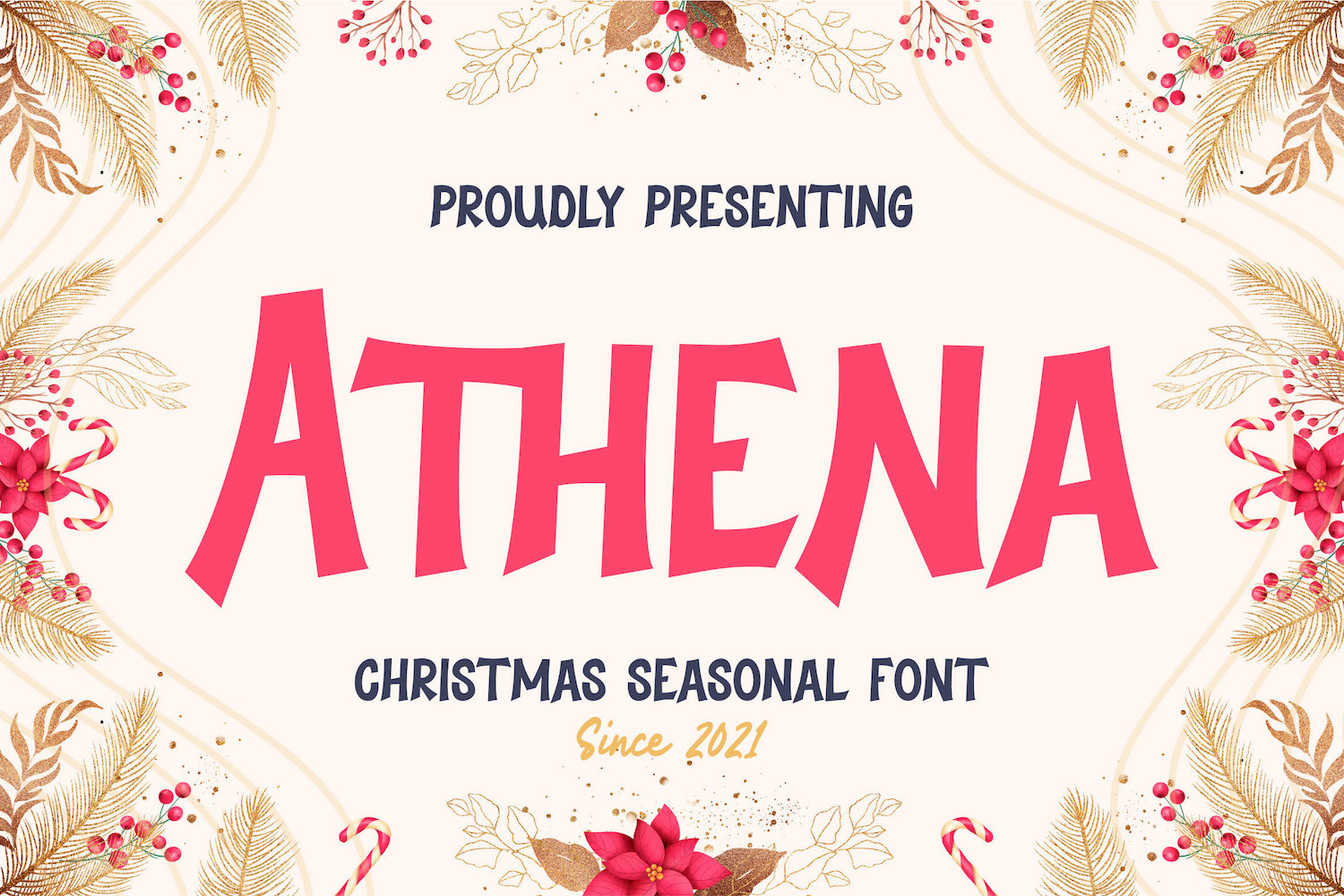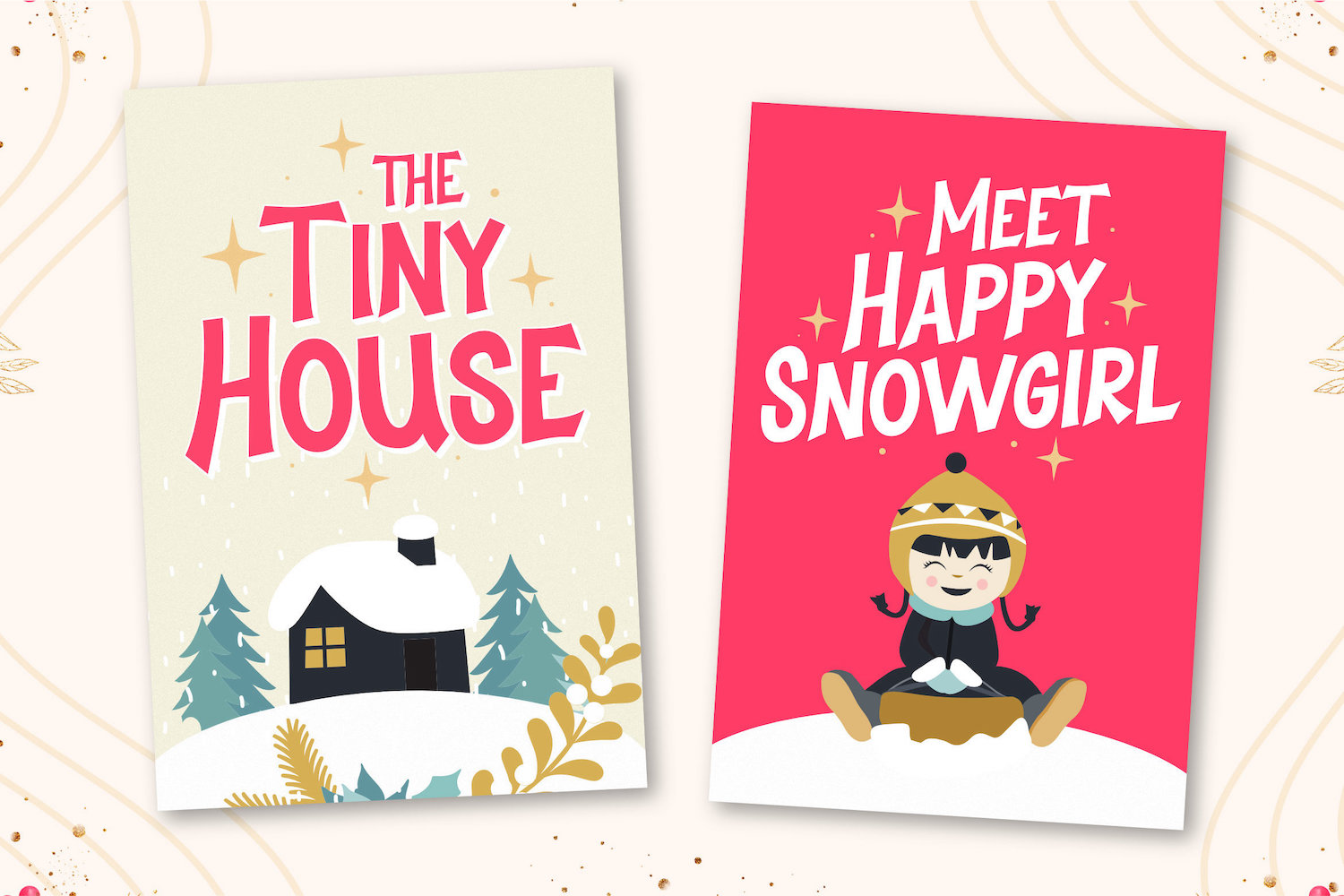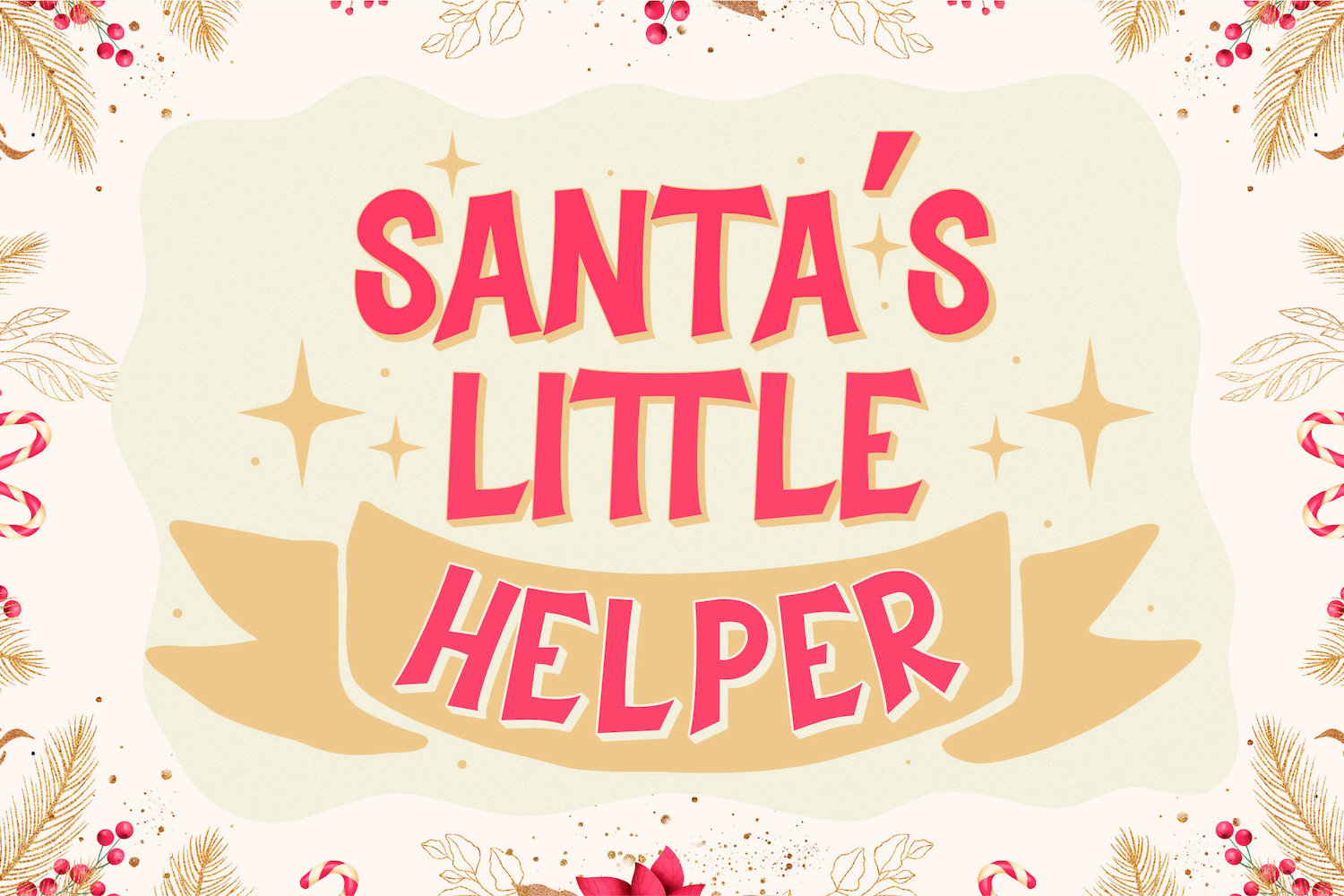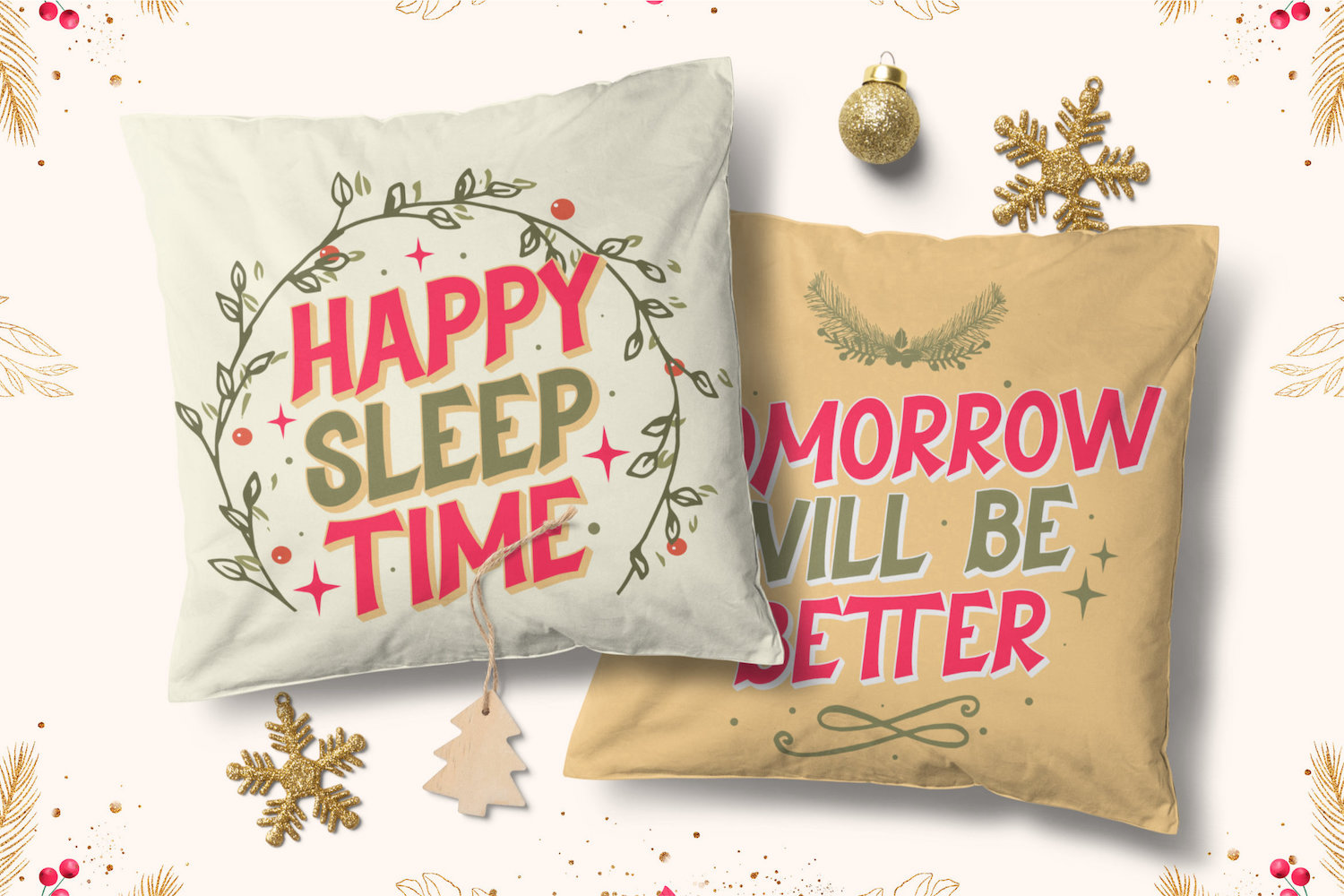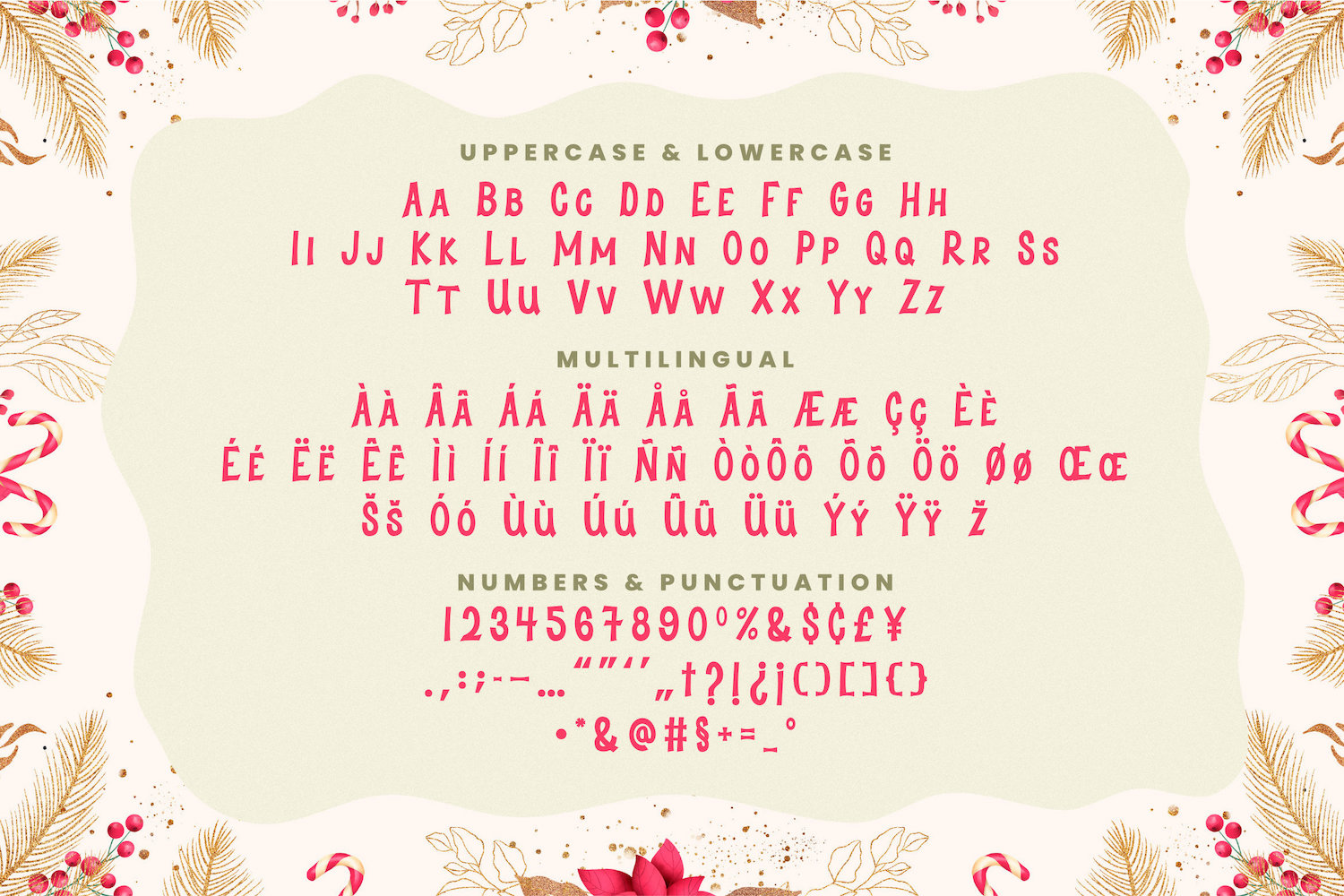
Athena is a festive and playful display font crafted with the joyful essence of Christmas in mind. Featuring bold, quirky letterforms with uneven baselines and sharp angles, it adds a cheerful personality to your seasonal projects. Its charming irregularities and fun vibe make it perfect for children’s books, holiday greeting cards, packaging, and Christmas-themed branding.
This font also supports multilingual characters and comes with a full set of punctuation and numbers, making it versatile for global use. Whether you’re creating cozy winter graphics or merry holiday signage, Athena brings warmth and whimsy that’s sure to capture attention and spread seasonal delight.
Athena